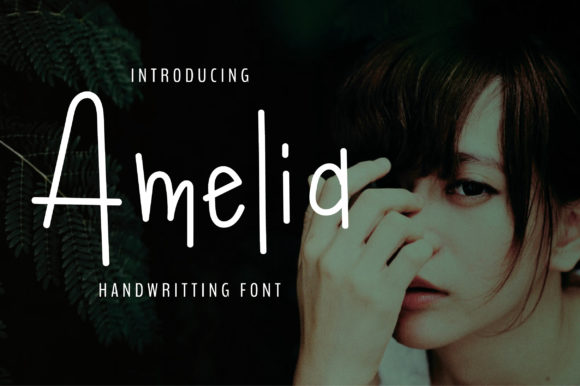
The Amelia Font: A Cheerful and Friendly Handwritten Delight
I’ll never forget the time I was working on a project for a client’s wedding invitation suite. I had the design concept nailed, but something was missing – the perfect font. I scoured the internet, tried out dozens of fonts, but none seemed quite right. That was until I stumbled upon the Amelia font. Its cheerful and friendly handwritten charm instantly won me over, and I knew I had found the one. In this article, I’ll share my love for the Amelia font, its features, and how to make the most of it in your designs.
An Honest Review of Amelia Font
What I Love About Amelia Font
- ✨ Unique and playful personality: Amelia font has a distinct, hand-crafted feel that adds a touch of warmth to any design.
- ✅ Highly legible: Despite its playful nature, Amelia font is surprisingly easy to read, making it perfect for body text and headings.
- 💕 Emotional connection: The font’s friendly and approachable vibe helps create an instant emotional connection with your audience.
While Amelia font is an excellent choice for many projects, there are a few things to keep in mind:
- 🤔 Limited use in formal contexts: Due to its playful nature, Amelia font might not be the best fit for very formal or corporate designs.
- ⚠️ Glyph coverage: While Amelia font has a wide range of glyphs, it might not cover every special character or language.
The Backstory of Amelia Font
Amelia font was designed with the intention of creating a friendly, approachable typeface that would bring warmth to any design. The designer aimed to capture the essence of handwritten communication, infusing it with a modern twist. The result is a font that’s both playful and elegant, perfect for a wide range of creative projects.
Q: Is Amelia font suitable for body text?
A: Yes, Amelia font is surprisingly legible and can be used for body text, especially in digital designs or creative projects.